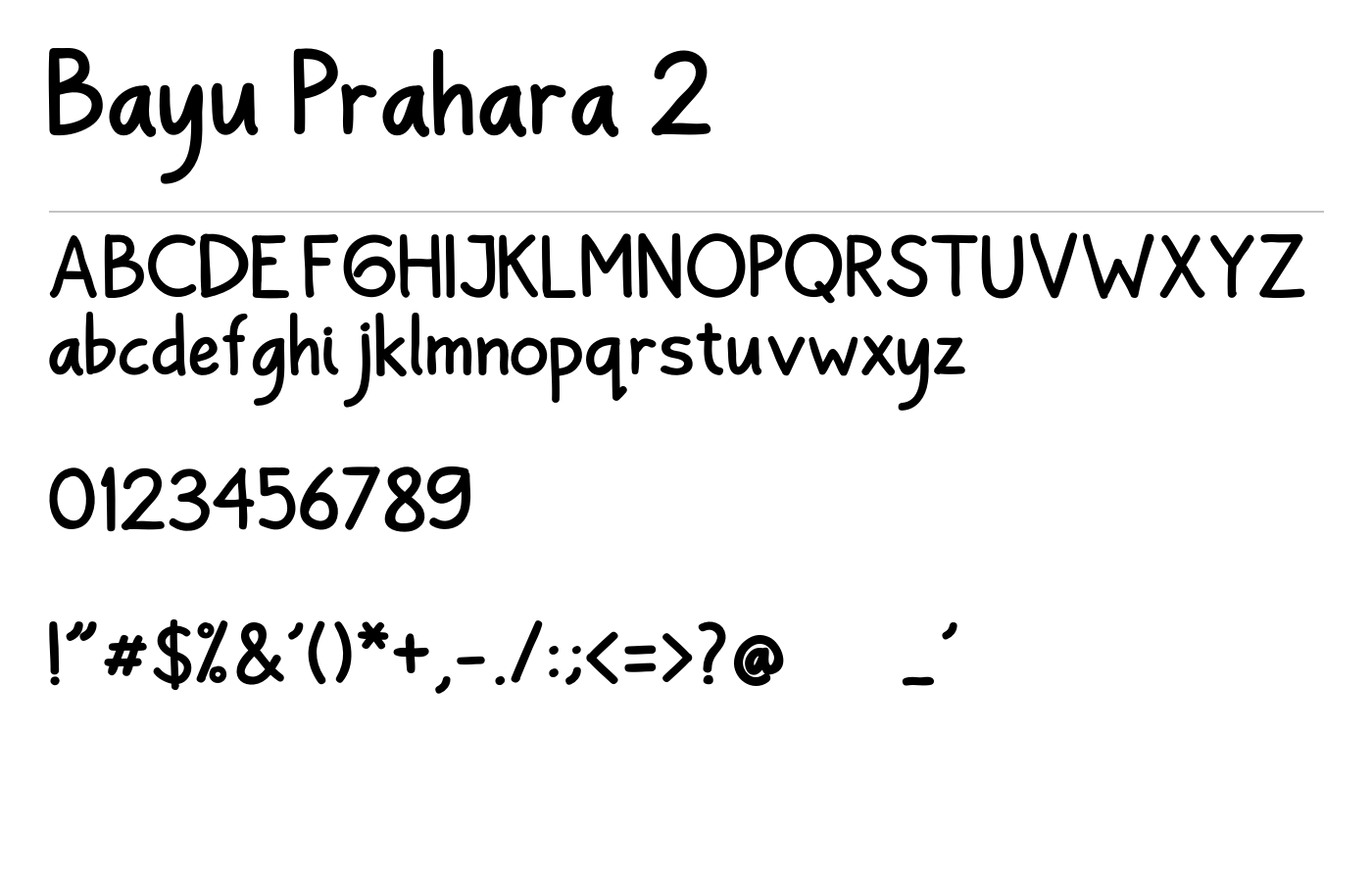
Bayu Prahara 2 is a playful and casual handwritten sans serif font with a friendly, informal vibe. It features organic, slightly irregular letterforms with moderate stroke contrast and a tall x-height, making it highly legible and approachable. This font works well for creative projects, children’s books, casual branding, and any design that benefits from a warm, personal touch.
Bayu Prahara 2 Font
About Bayu Prahara 2 Font